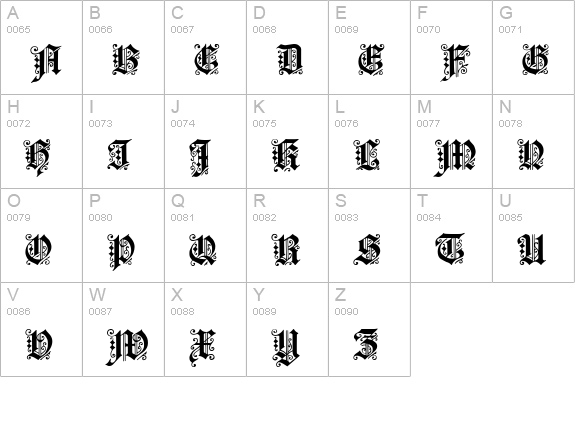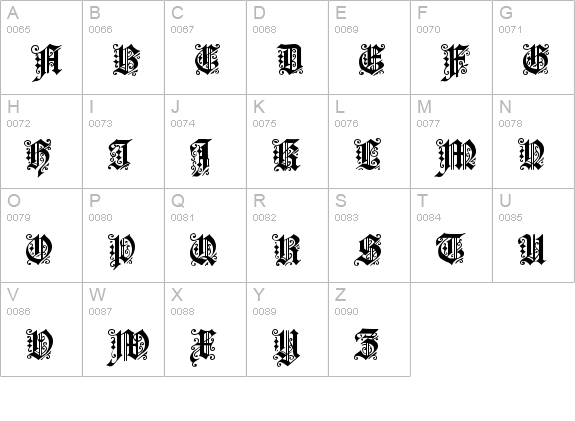
Introducing Dearest font, a breathtakingly beautiful typeface that exudes elegance and grace. This font is the epitome of sophistication, with its delicate curves and refined details. It effortlessly captures the essence of modernity and timelessness, making it the perfect choice for any design project. But what sets Dearest font apart from the rest is its accessibility. Yes, you heard it right – this stunning font is absolutely free! You no longer have to break the bank to add a touch of class to your designs. Dearest font is freely available to download at FontsMarket.com, making it accessible to all designers, from beginners to seasoned professionals. With Dearest font, you can elevate your designs to new heights. Its versatility allows it to shine in a variety of contexts, whether it's used for branding, headlines, invitations, or any other creative endeavor. The precise letterforms and balanced proportions ensure legibility and readability, while the subtle flourishes add a touch of personality and charm. The character set of Dearest font is extensive, offering a wide range of glyphs, ligatures, and alternate characters. This allows you to experiment and create unique combinations, giving your designs a truly distinct and individualistic touch. Whether you're going for a classic and refined look or a modern and edgy aesthetic, Dearest font has got you covered. So why wait? Experience the sheer beauty and versatility of Dearest font today. Download it for free at FontsMarket.com and let your creativity soar. With Dearest font, your designs will exude a sense of elegance and sophistication that is bound to leave a lasting impression.